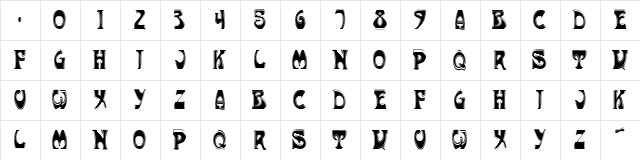
NouveauUneInline Regular
Copyright: (c) 2001 Douglas Day. Based on characters in Josef Lehner's "Authentic Art Nouveau Lettering and Design" (Dover Publications)
Design Context for NouveauUneInline
NouveauUneInline is built around its visual character rather than neutral utility - its distinctive forms are designed to make an impression at display sizes.
Font Pairing: Pair with a clean neutral sans-serif for body copy to let NouveauUneInline's character lead without overwhelming the composition.
Pro Tip: Use NouveauUneInline exclusively at display sizes - it was designed to be seen, not read at length. Let a neutral companion handle body copy.